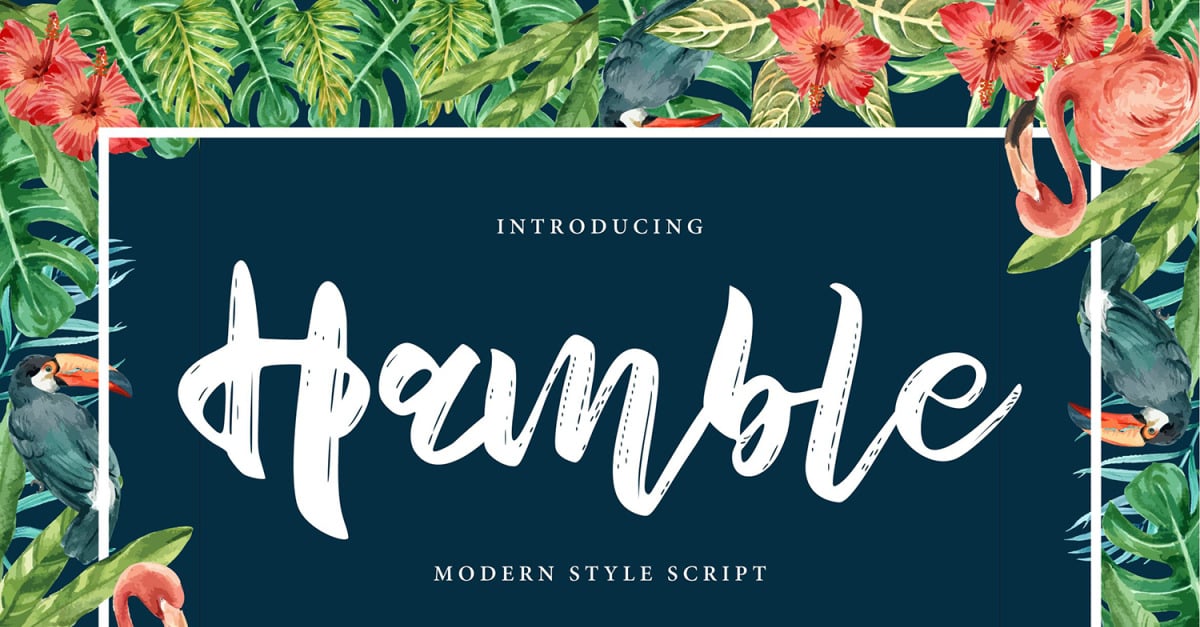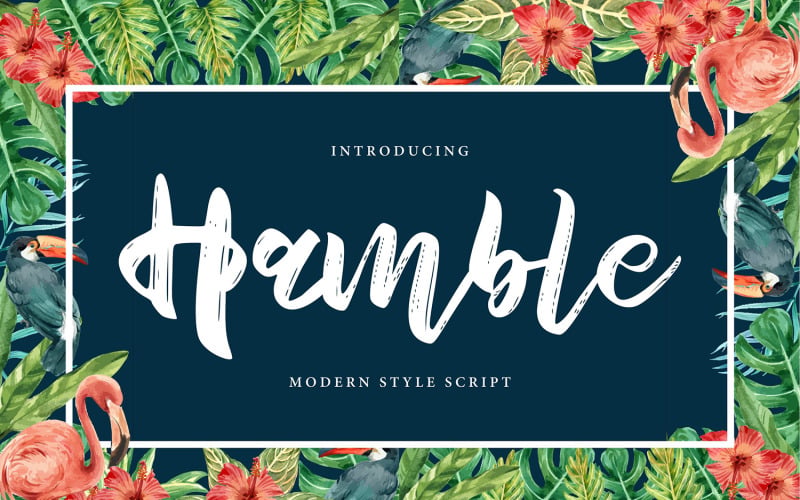
Hamble | Modern Style Cursive Font
**Hamble | Modern Style Script Font** with a calligraphy style, So beautiful on invitation like greeting cards, branding materials, business cards, quotes, posters, and more!